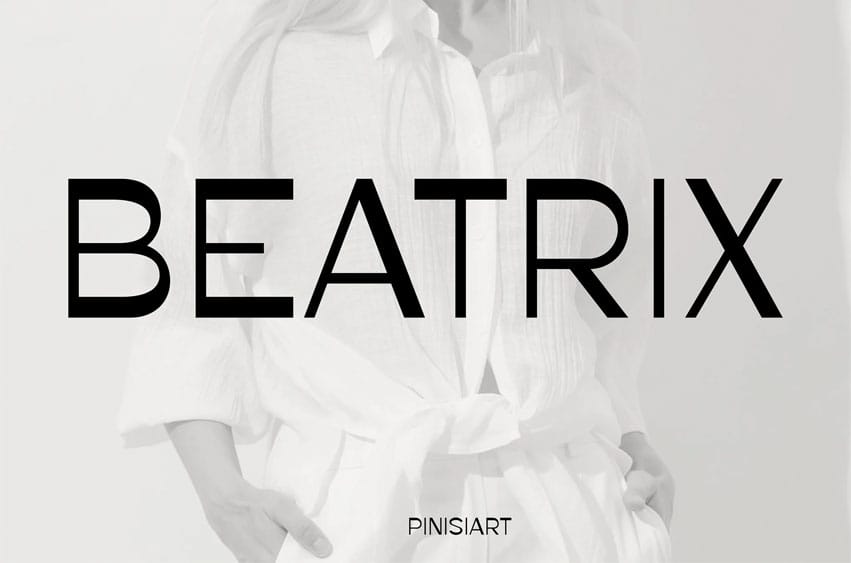
Beatrix Font is a clean and graceful sans serif that speaks the language of luxury, minimalism, and confidence. Perfect for Instagram carousels, lookbooks, and modern branding, it delivers elegance with clarity in every line. Inspired by fashion runways and monochrome layouts, BEATRIX bridges high-end style with social media impact.
Whether you’re designing for boutique fashion brands, wedding vendors, trendsetters, or beauty entrepreneurs, this font makes every post, flyer, and story frame look editorial-ready.
- Chic and neutral sans serif for refined visual tone
- Excellent readability for social media captions and large headlines
- Balanced geometry for polished branding and versatile layouts
- Perfect for Instagram posts, luxury brands, wedding design, and influencers
Let your visuals whisper elegance—BEATRIX is the font for bold simplicity.